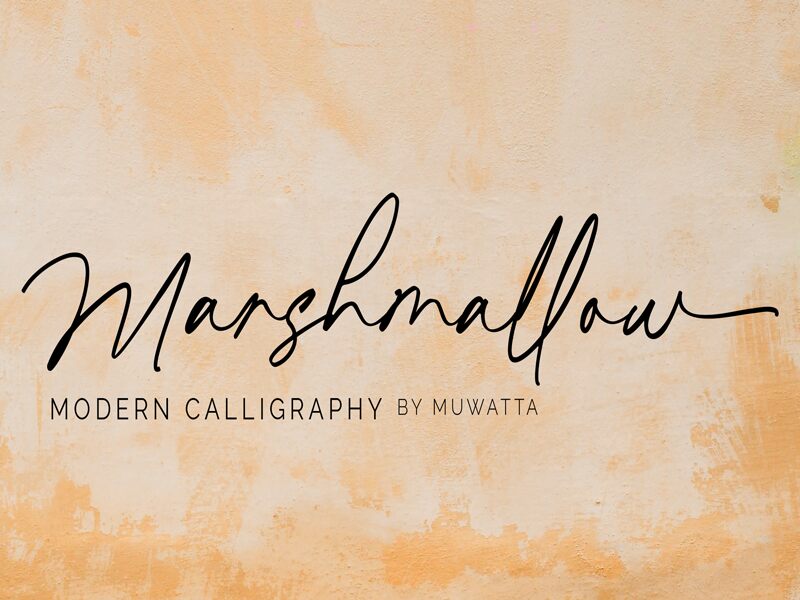
Marshmallow, the newest addition to Muwatta Studio's collection, is a light-weight handwritten signature font that will instantly elevate your projects. Perfect for wedding invitations, logos, and branding materials, this unique typeface adds a touch of whimsy and elegance to any design. Its gentle curves and playful strokes create an effortlessly chic look that is both modern and timeless. Use Marshmallow in a semi-bold font for headlines or captions on social media posts or try it in a regular width for greeting cards or product packaging. Let Marshmallow be the sweet finishing touch to your next project!